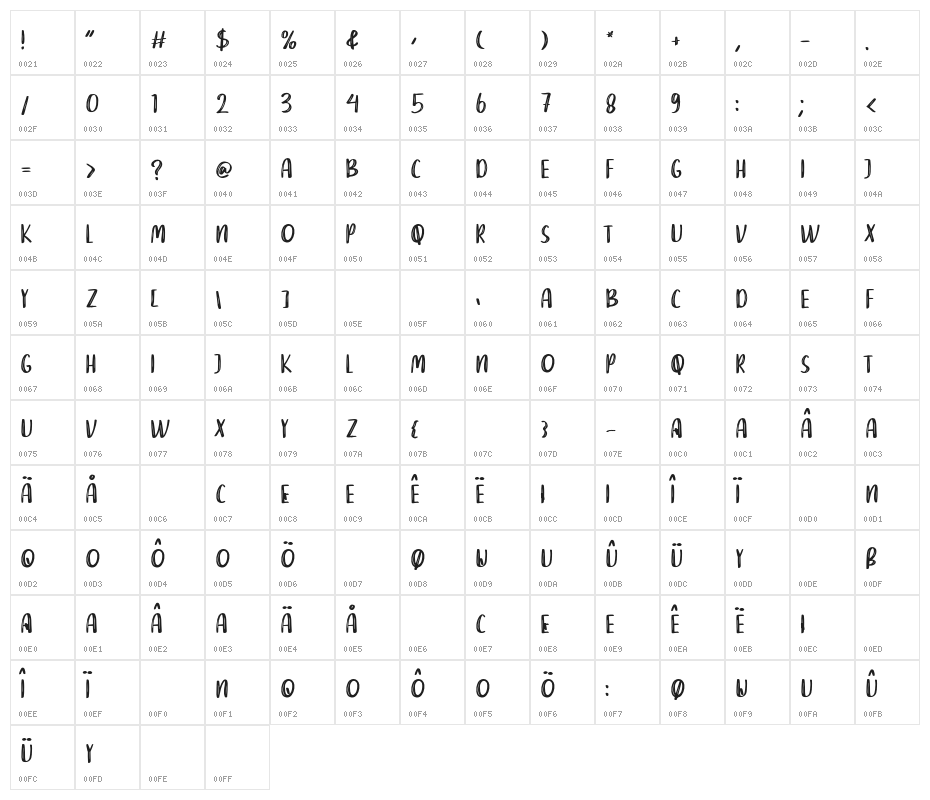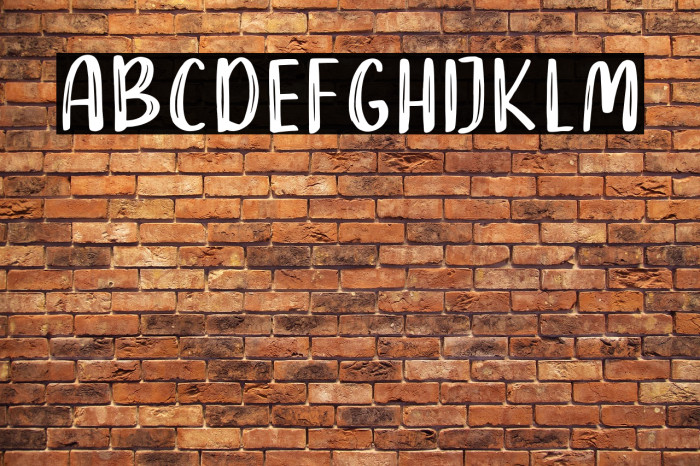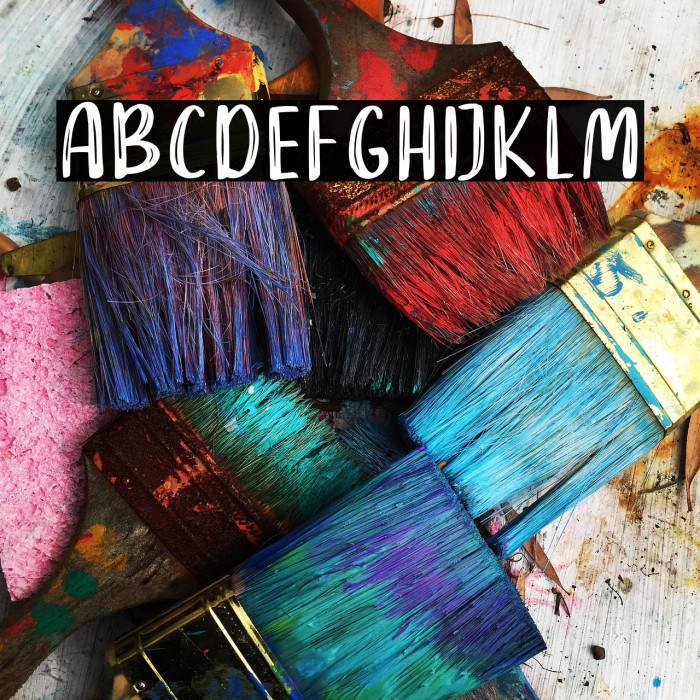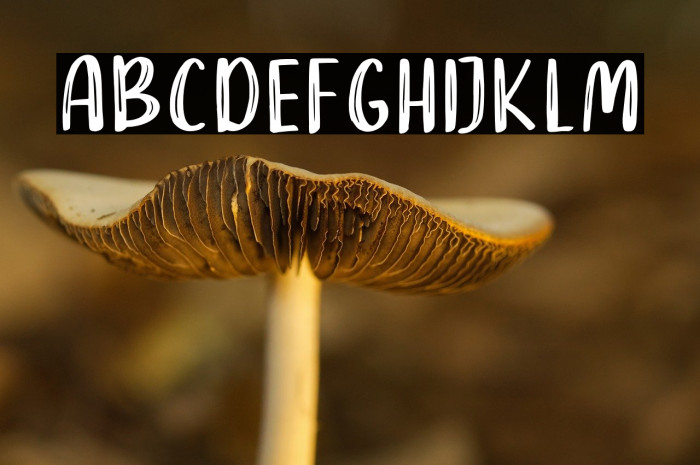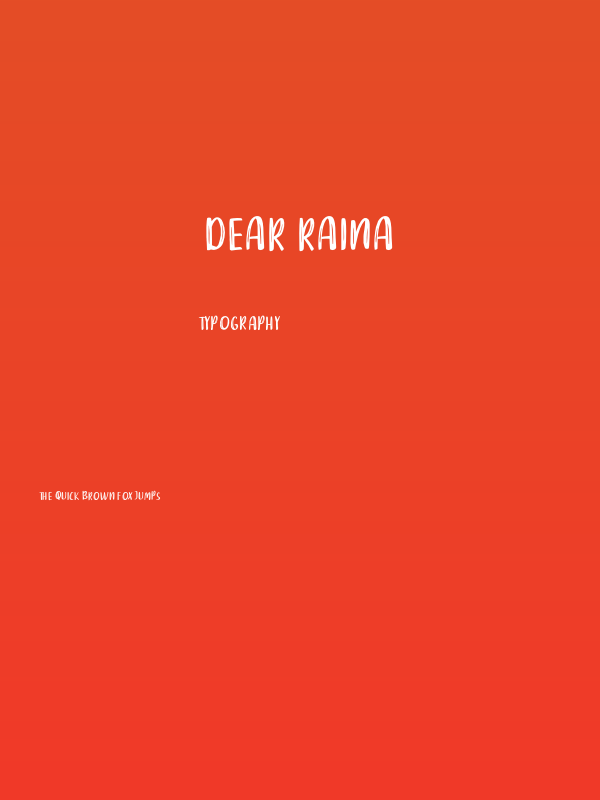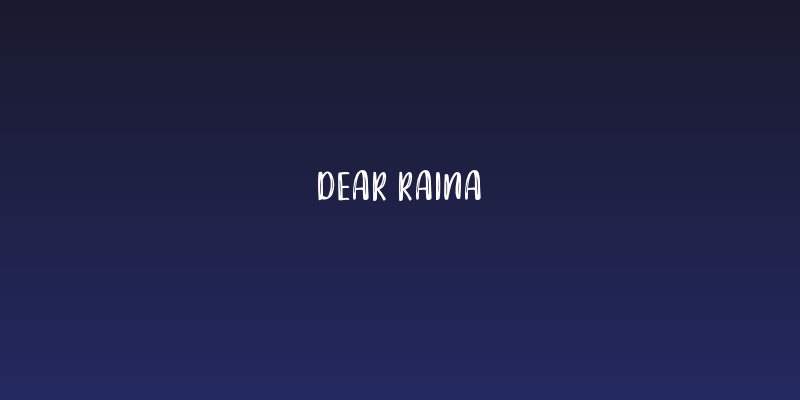
DEAR RAINA Font
DEAR RAINA Description
This font features a playful and energetic handwritten style, characterized by its bold and slightly irregular strokes. The letters have a casual, informal appearance, with a dynamic flow that suggests movement and spontaneity. The uppercase and lowercase letters maintain a consistent style, while the numbers and special characters integrate seamlessly with the overall design. The font's unique charm lies in its imperfect lines and varied stroke widths, which add a touch of personality and warmth. It's well-suited for projects that require a friendly and approachable aesthetic.
| Proposed Projects | Ideal for greeting cards, children's books, playful branding, and social media graphics. |